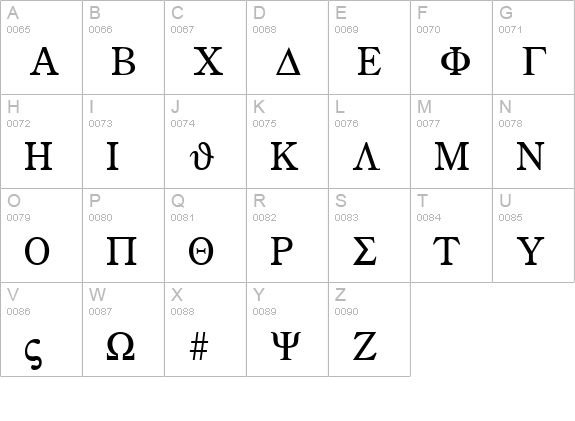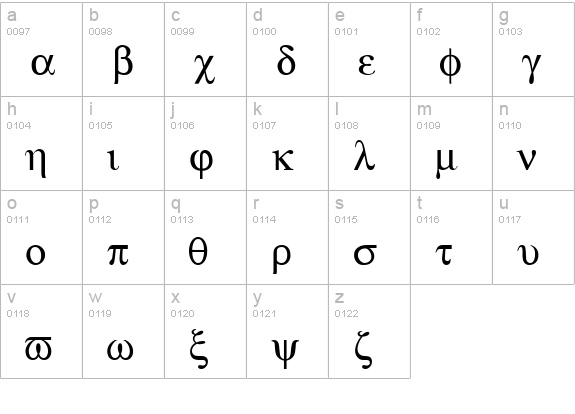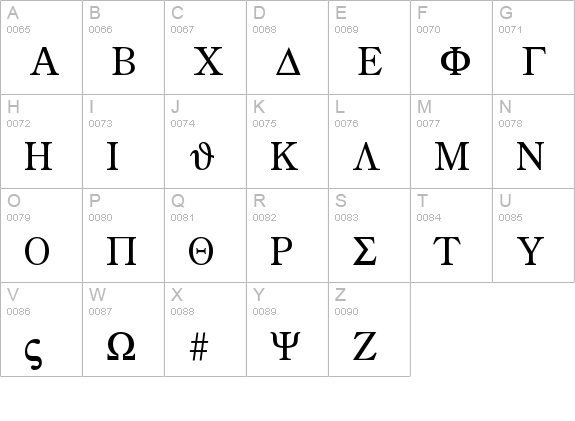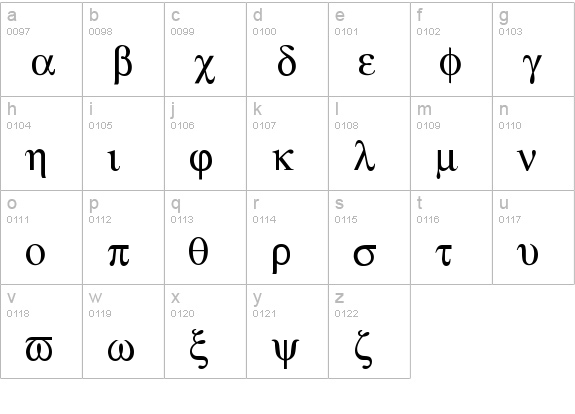
Greek Normal is the standard, neutral variant in the Greek typeface family \xE2\x80\x94 well suited to general body text, paragraphs, and standard typographic work.